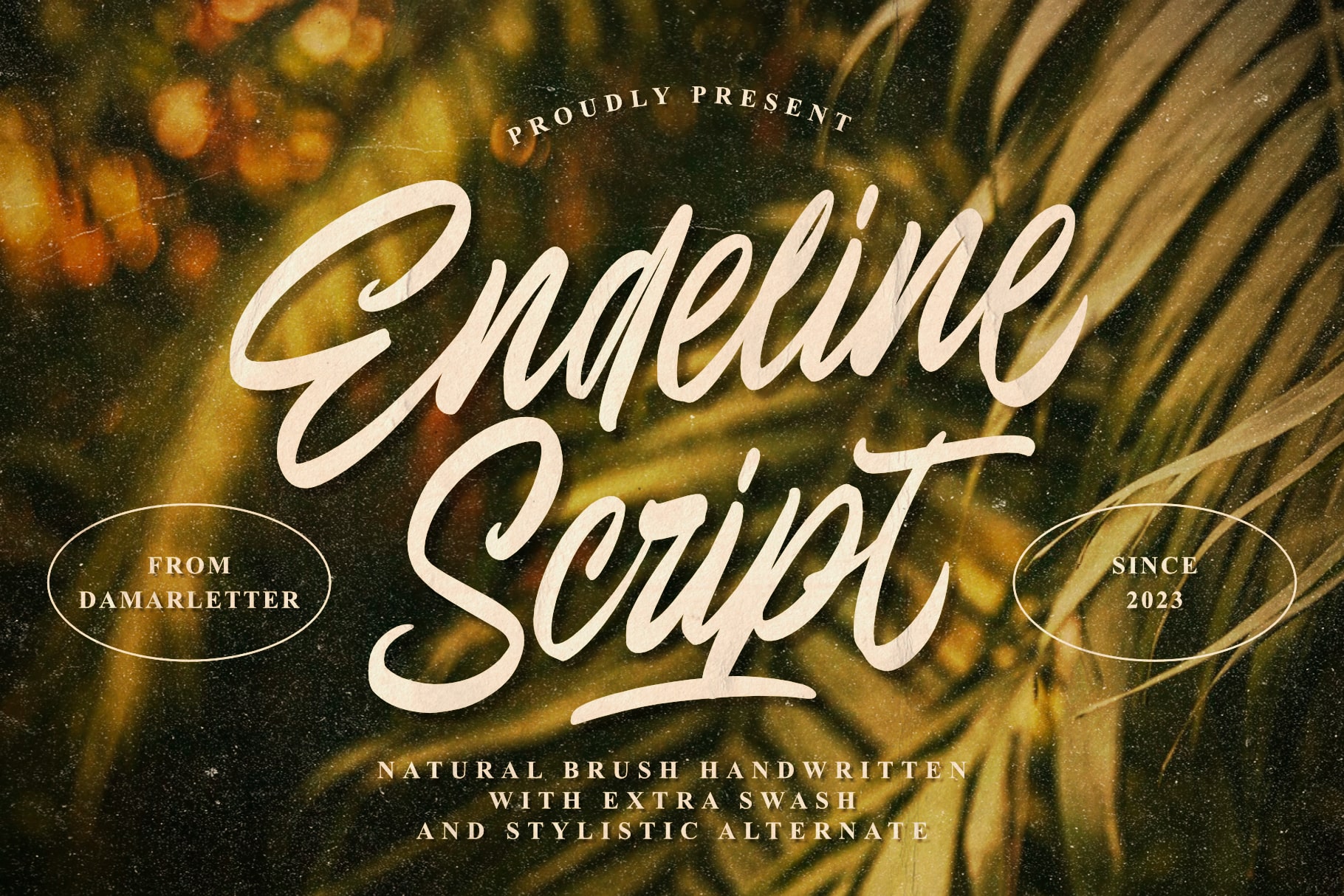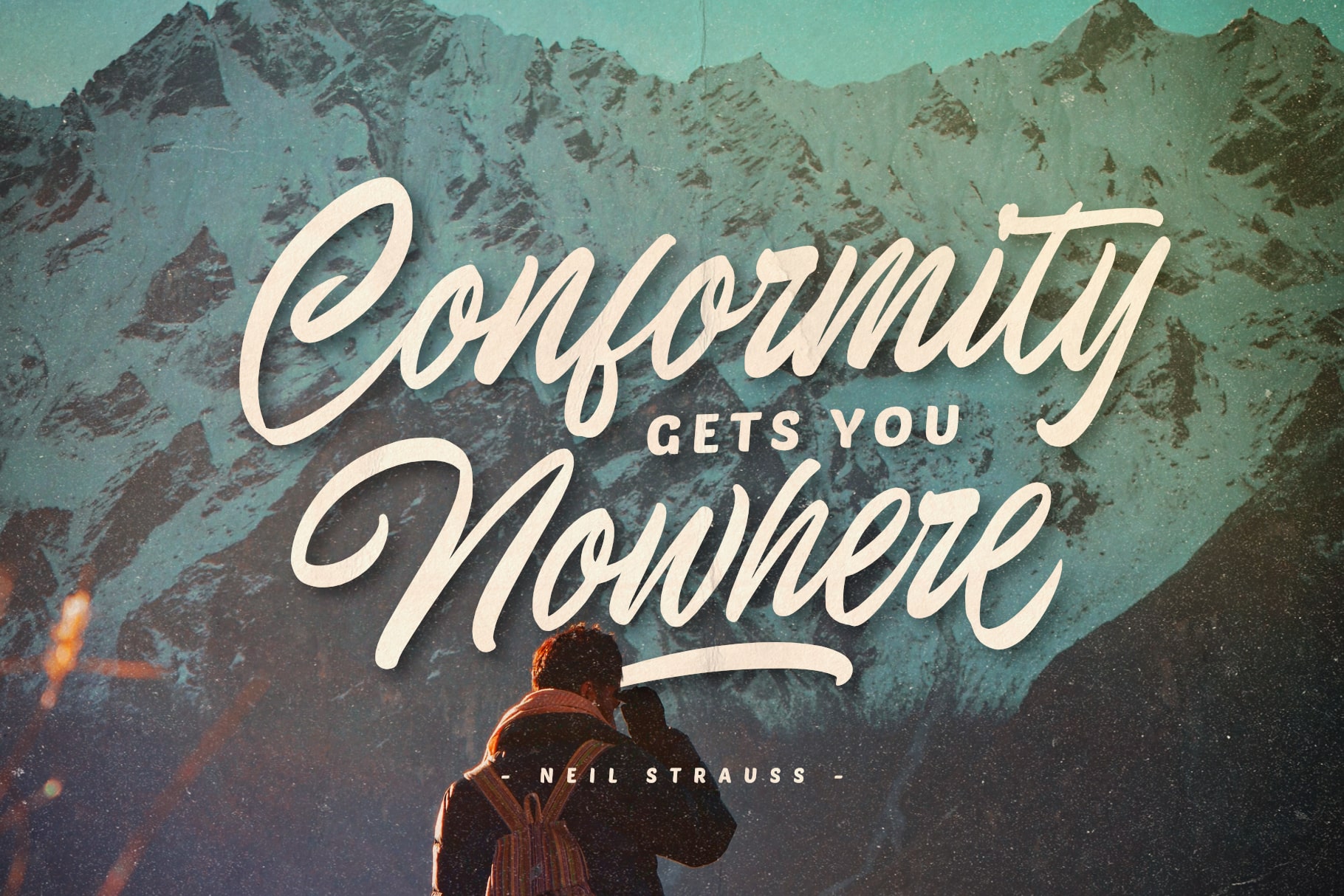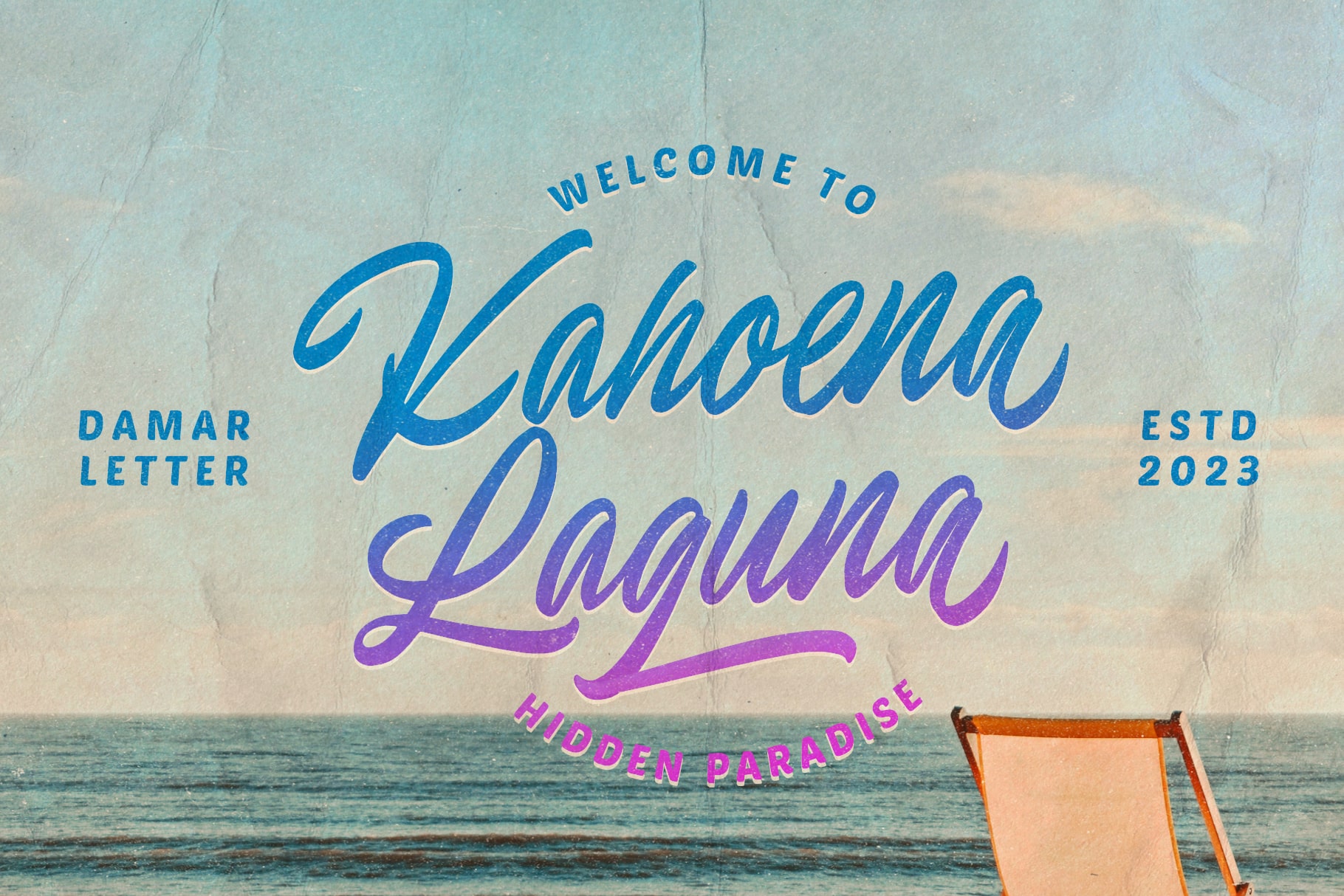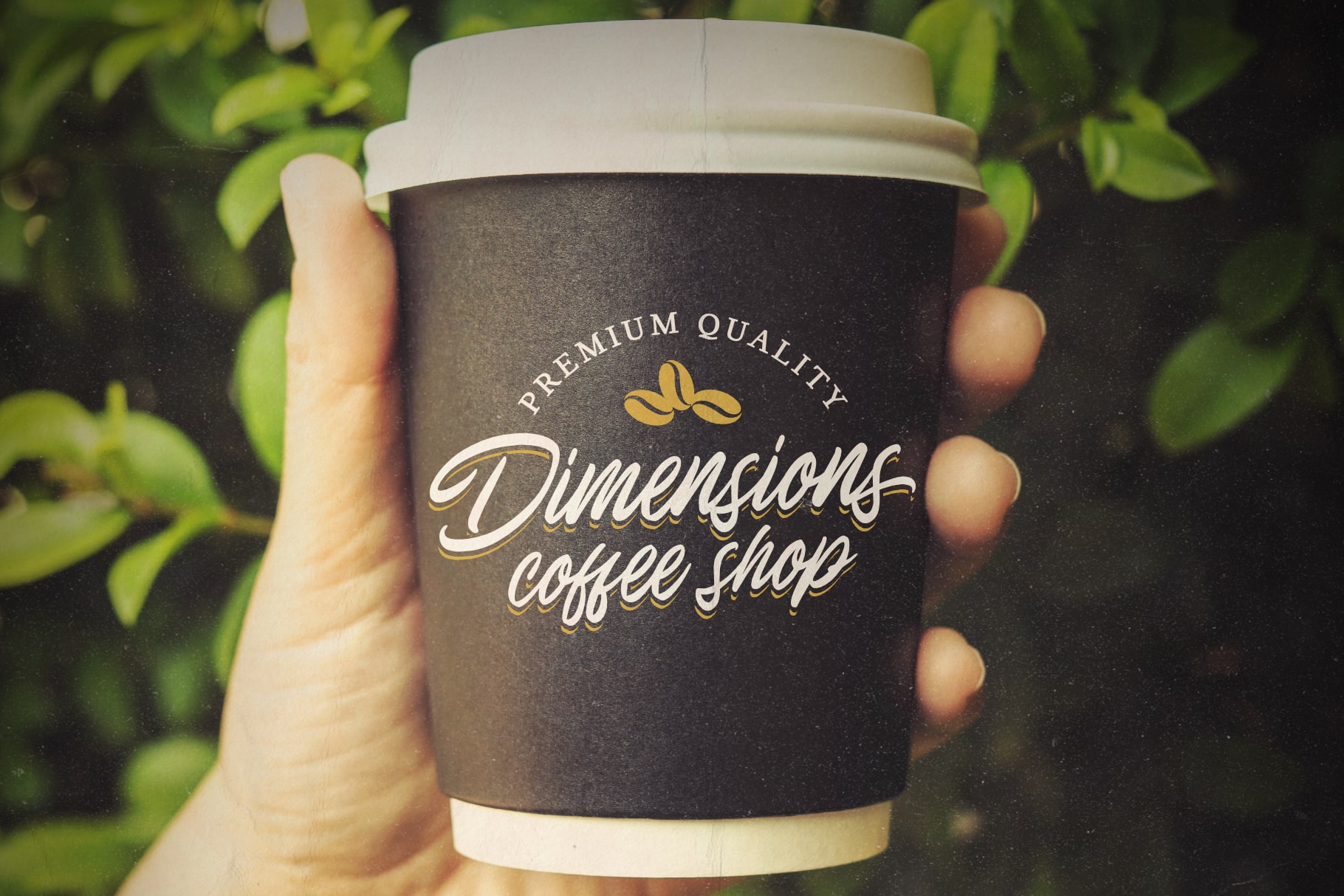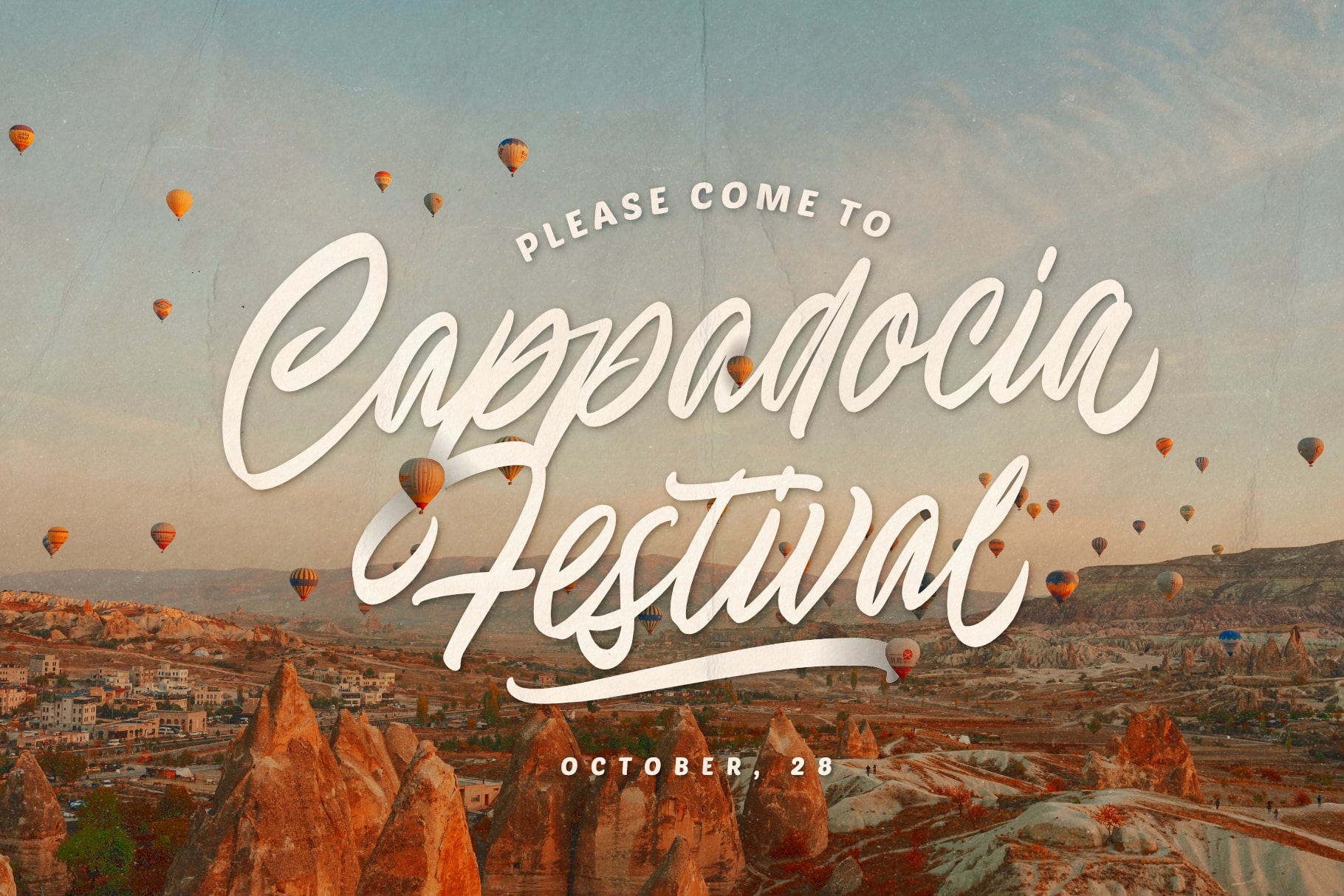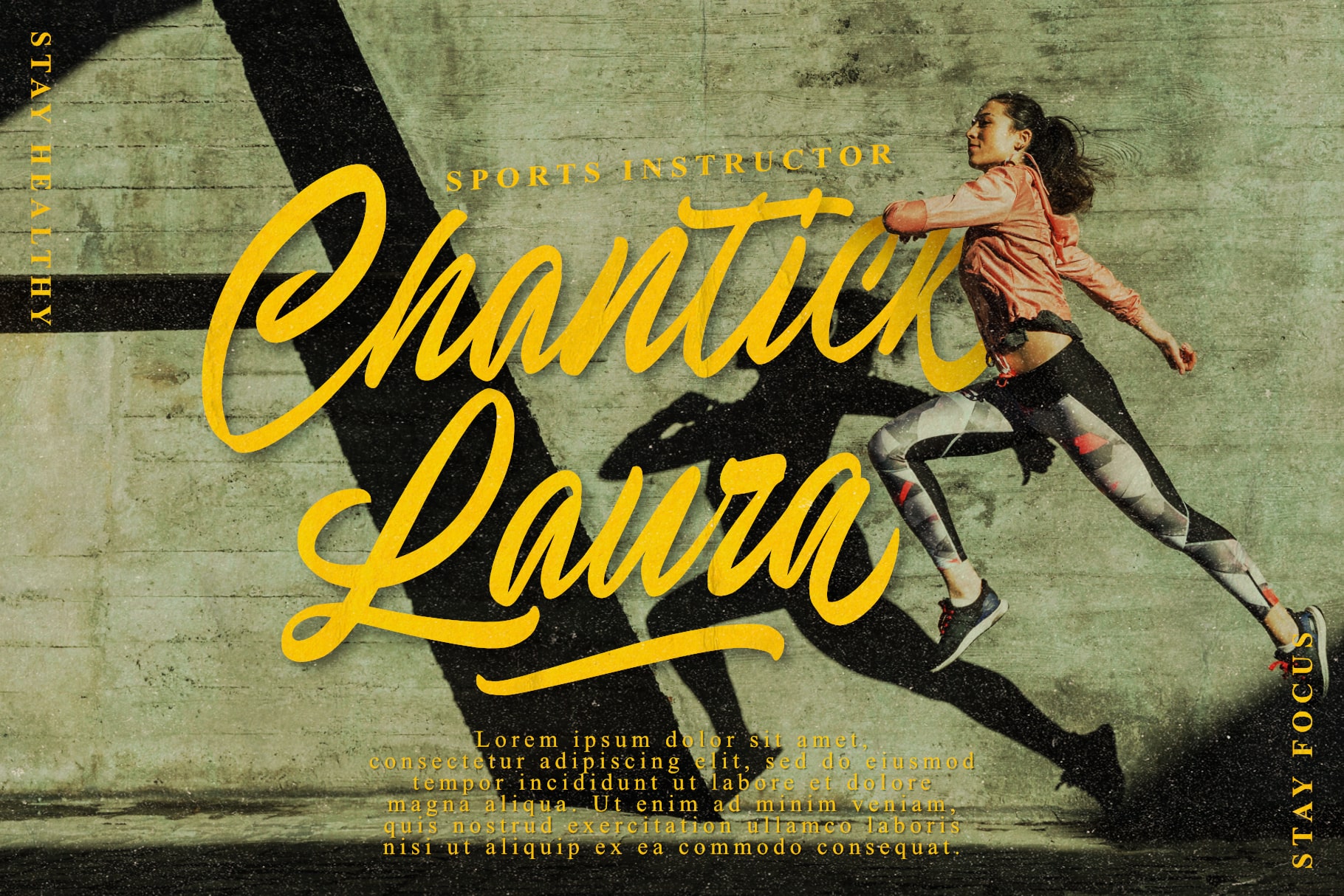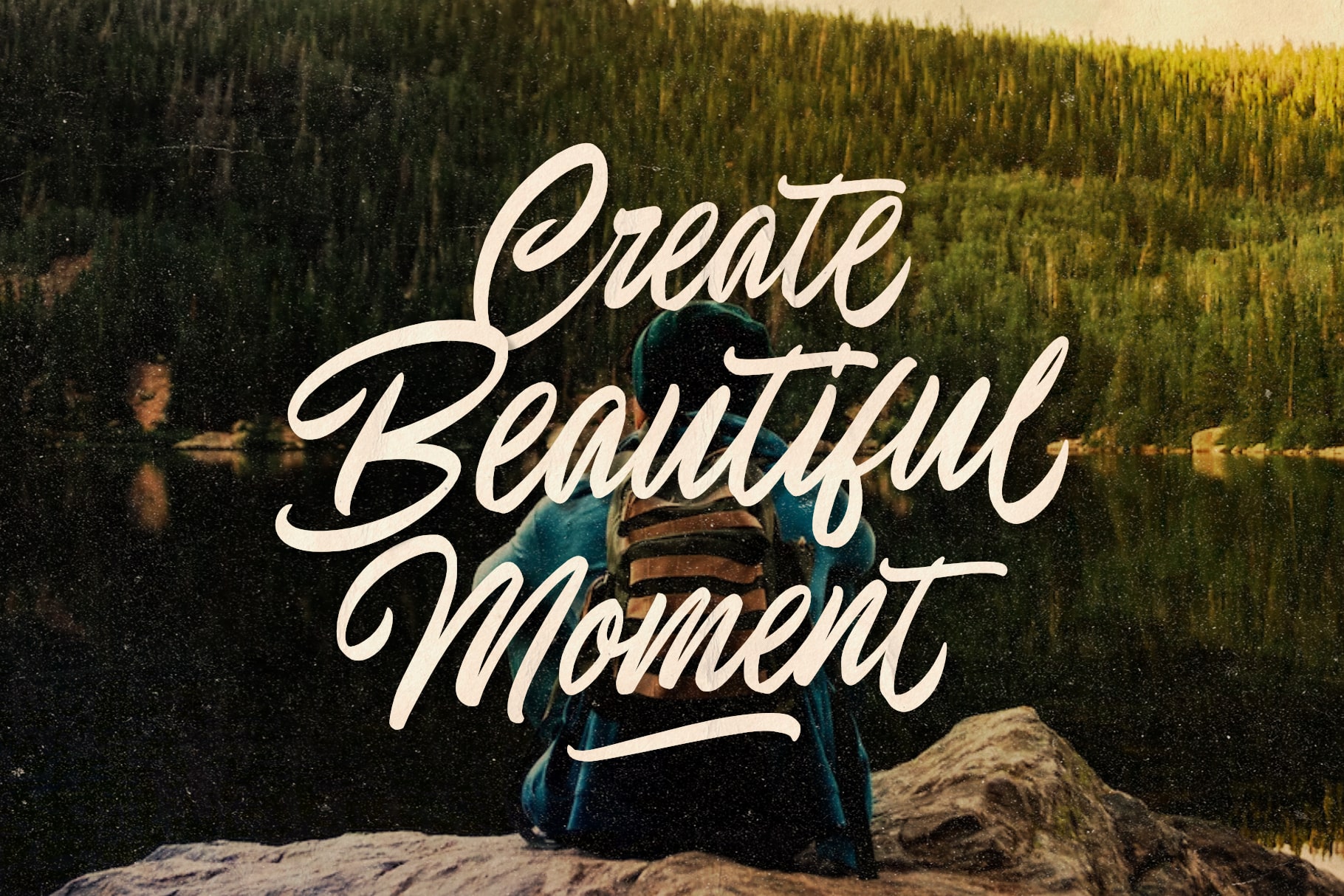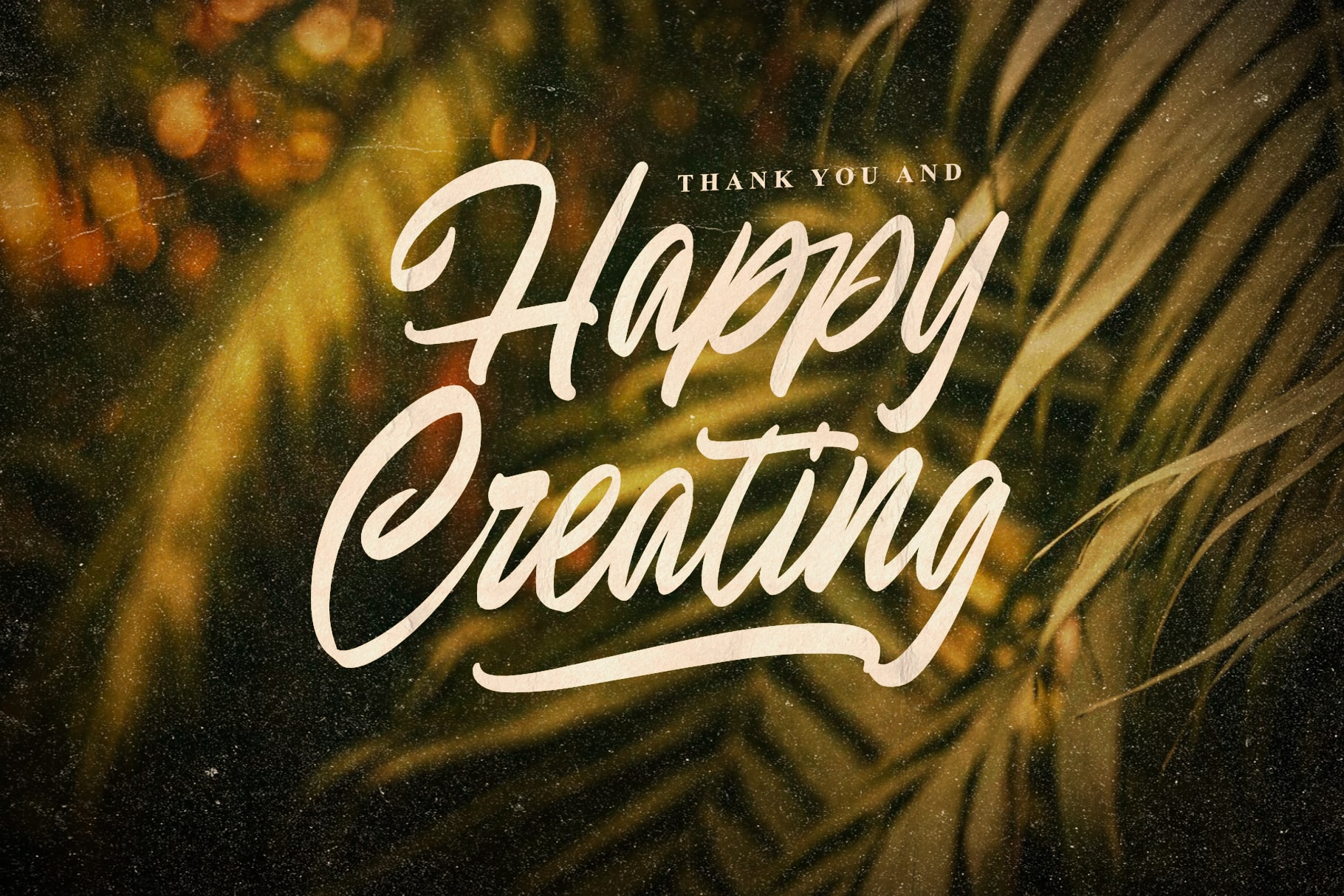
- Endeline Script Handwritting
Endeline Script is a chic, refined script font. Its stylish ligatures make this font the perfect match for any project.
This font is consisting of a fashionable style script make looks classy and touch of stylish.
This font was created to look as close to a natural handwritten script as possible.